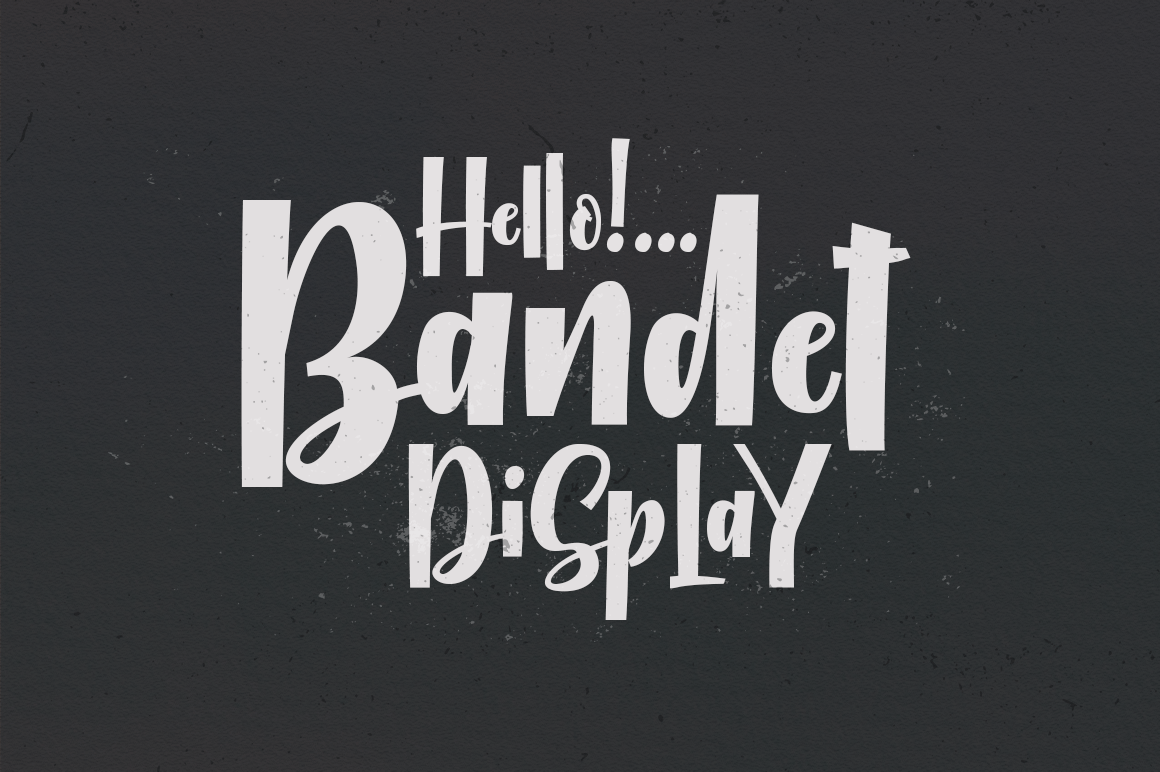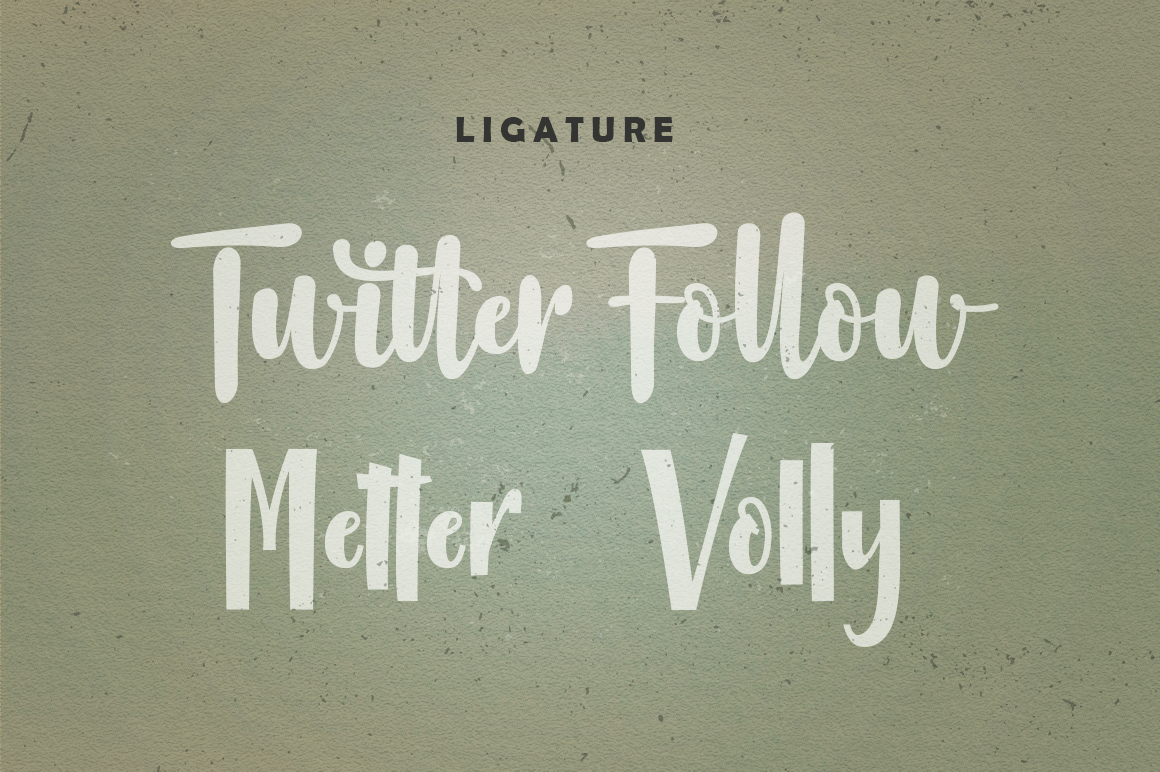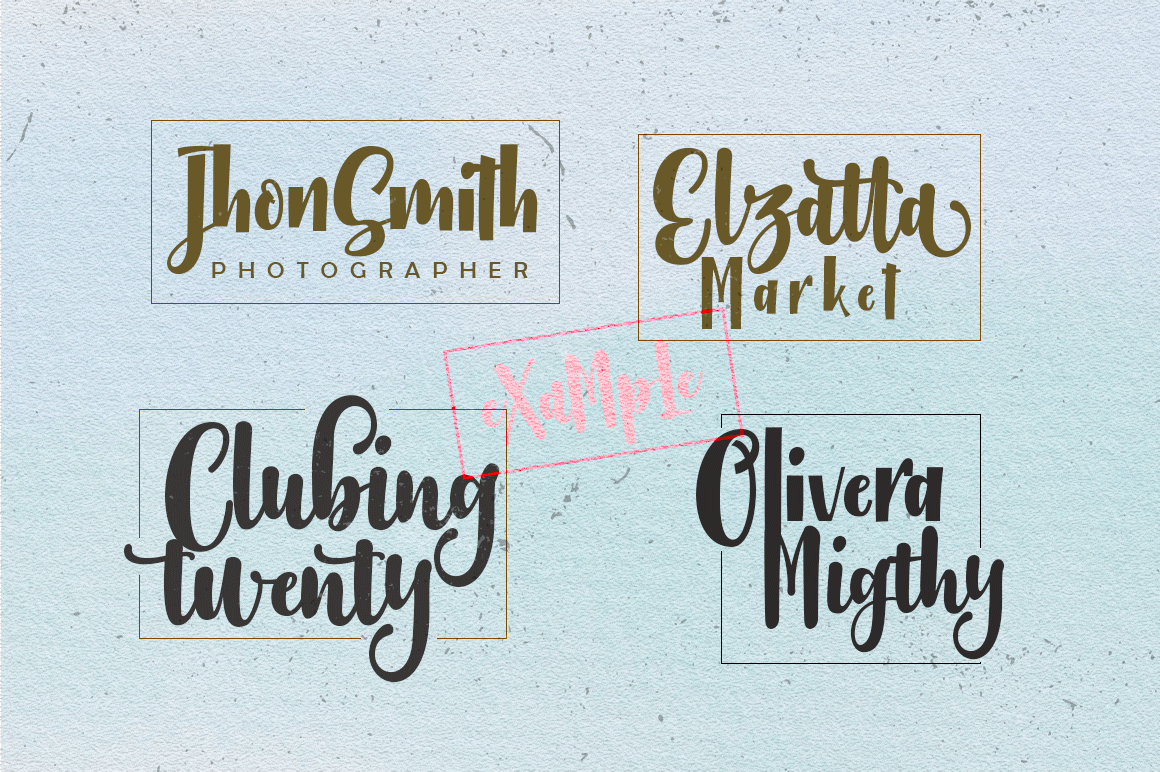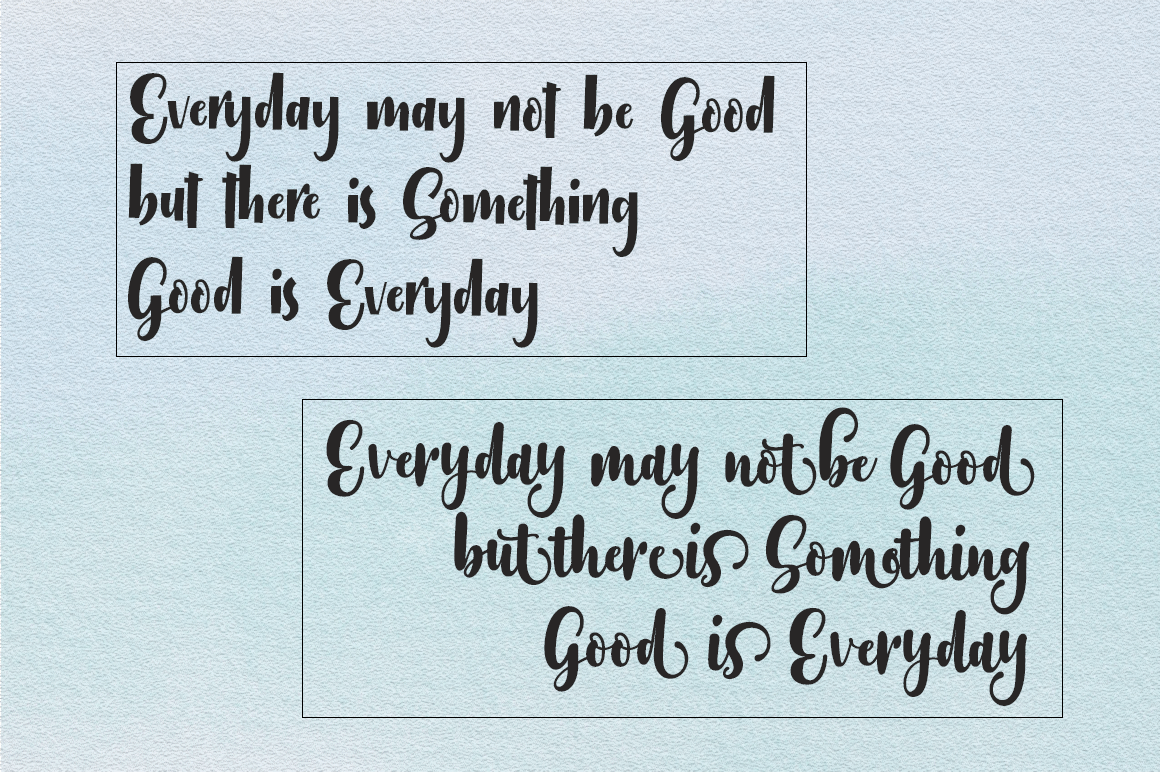
HomeScript FontsBandet Font Script Fonts Bandet Font FacebookXPinterestWhatsApp Bandet Font Poster 2 Bandet Font Poster 3 Bandet Font Poster 4 Bandet Font Poster 5 About Bandet Font This font duo consists of 2 brush-based fonts. DOWNLOAD NOW People also explored MoonBeam Font Sahitya Font Outline Graff Font Gelisah Font Cute Dinosaur Font Handshot Font Standly Font Beauty’s Doodle Dingbat Font Pamsetto Font 288 0 TagsBandet Font Previous articleJusttrue FontNext articleCoolline Font LEAVE A REPLY Cancel reply Comment: Please enter your comment! Name:* Please enter your name here Email:* You have entered an incorrect email address! Please enter your email address here Website: Save my name, email, and website in this browser for the next time I comment. Personal Use Free Denisha Personal Use Free Read more about this font Entin Personal Use Free Read more about this font Kumadinya Personal Use Free Read more about this font Juliagar Personal Use Free Read more about this font BLOG Modern Sans-Serif Fonts That Brands Love in 2025 In 2025, modern sans-serif fonts remain a top choice for brands looking to project clarity, professionalism, and... Free vs Paid Fonts: Why Investing in Premium Fonts Is Worth It Free Fonts Risk: Why Free Fonts Can Be Dangerous for Designers Using Fonts in Digital Marketing: Tips to Strengthen Your Brand Identity